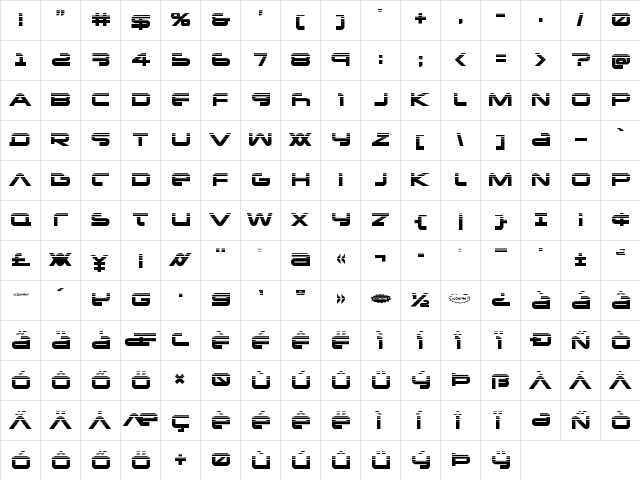
New Mars Halftone Regular
Design Context for New Mars Halftone Typeface
New Mars Halftone is a composed and adaptable typeface that performs quietly and consistently across a wide range of design contexts.